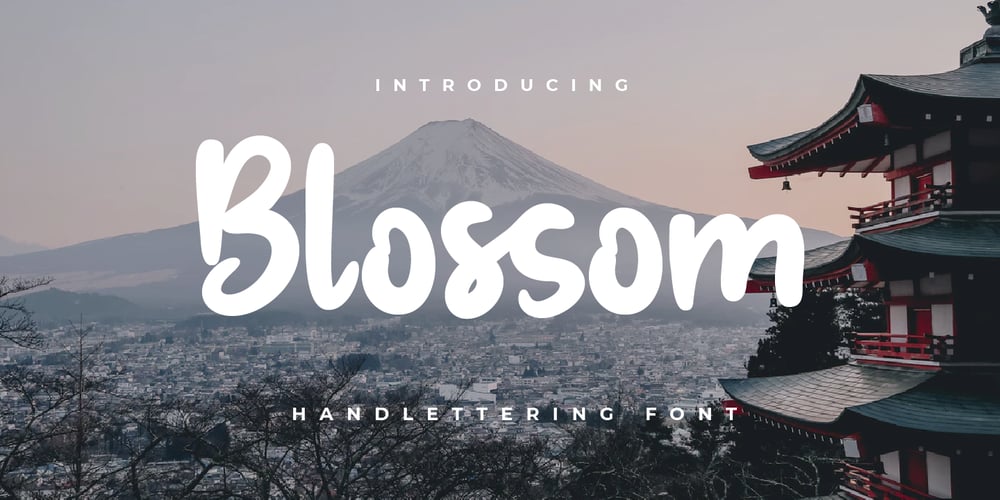
Blossom Font Family was designed by Lita Faolina and published by Product Type. Blossom contains 1 styles and family package options. Blossom is a brush handwritten font that brings a touch of nature to your designs. Its organic, flowing characters mimic the beauty of human handwriting, making it perfect for designs that require a personal, handmade touch. Whether you’re creating a logo for a floral brand or a headline for a gardening blog, Blossom adds a touch of nature that is sure to captivate your audience.